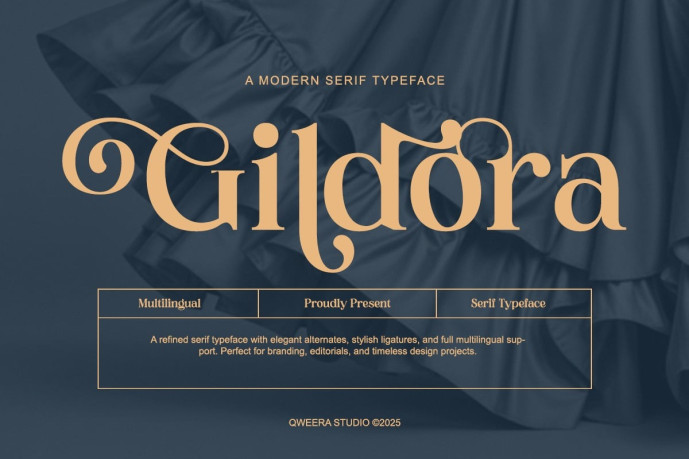
Gildora Font
Gildora Font is a modern elegant serif typeface that blends sophistication, style, and timeless charm. It features refined strokes, graceful alternates, and stylish ligatures, ideal for luxury branding, magazines, and product packaging. Whether you’re designing a fashion logo or high-end editorial layout, Gildora adds a touch of refined elegance to every project.